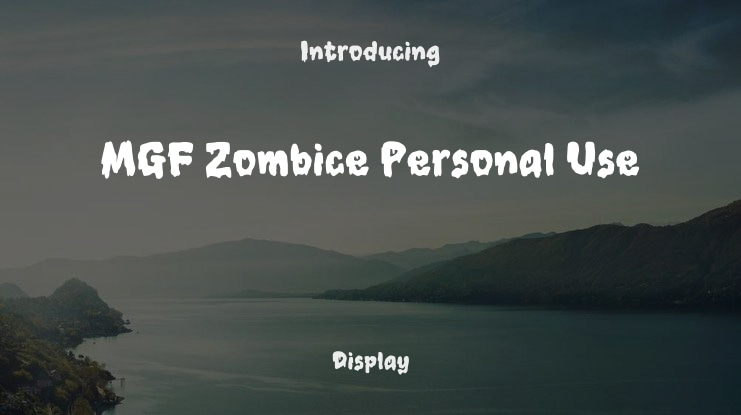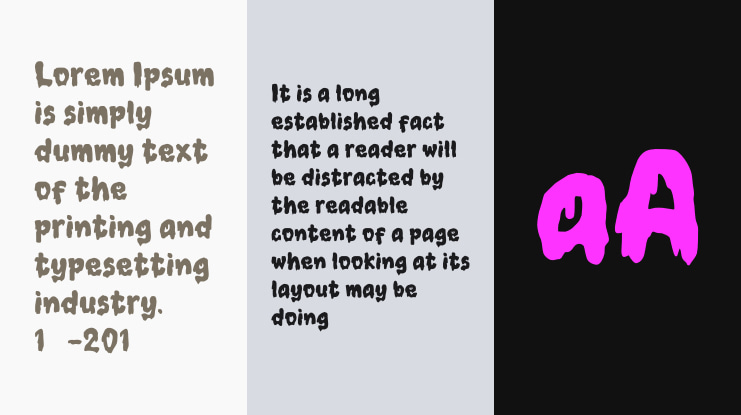
MGF Zombice Personal Use Font
Gumilang Ruslan
Zombice is a creepy dripping display font that combines horror-inspired vibes with a chilling icy look. The bold, melting letterforms create a sense of mystery, fear, and fun, making it perfect for Halloween posters, gaming logos, scary movie titles, or spooky merchandise.
MGF Zombice Personal Use font